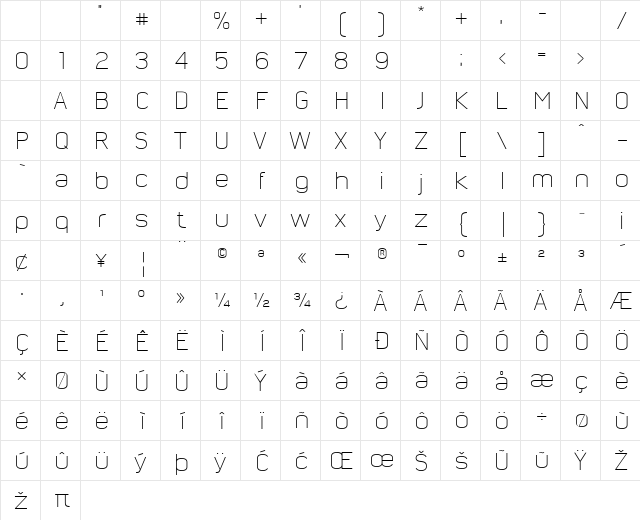
Complete Nordstern Demo Light Hell glyph index. Displaying only characters natively supported by Nordstern Demo Light Hell font.
Nordstern Demo Light is a composed and adaptable typeface that performs quietly and consistently across a wide range of design contexts. Its slender proportions lend an understated elegance to any composition.